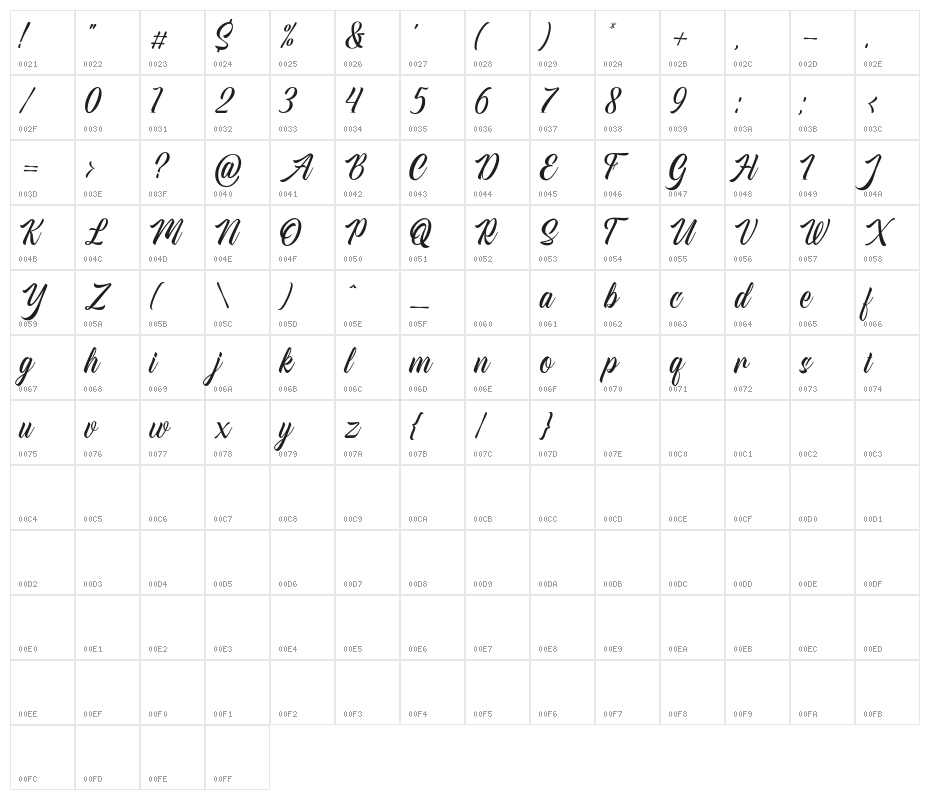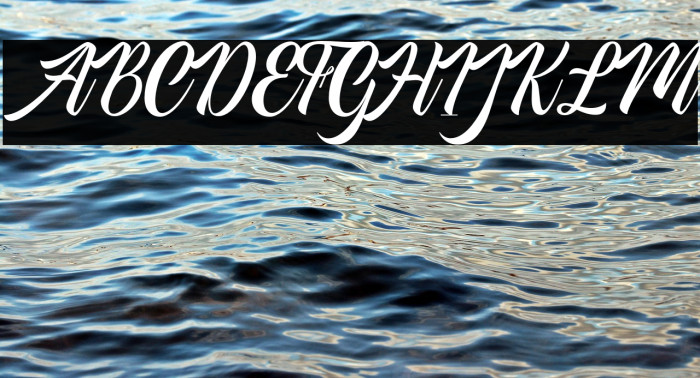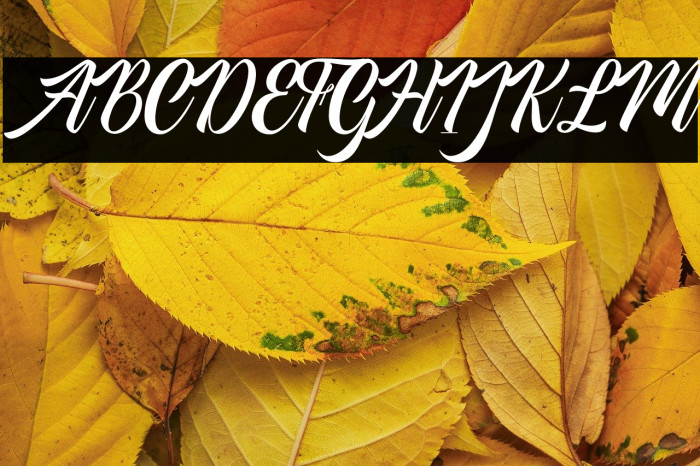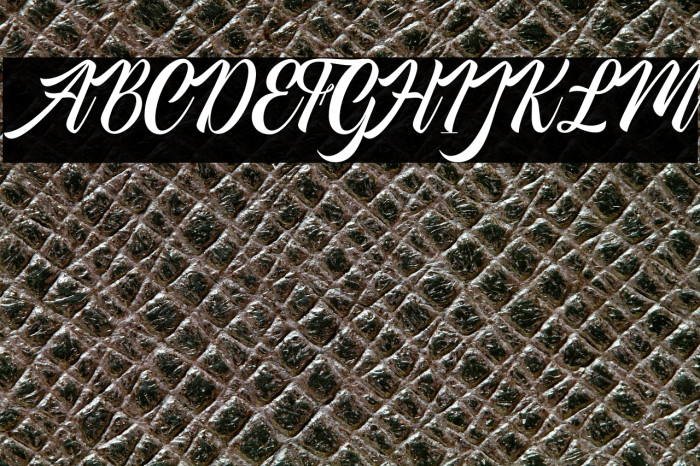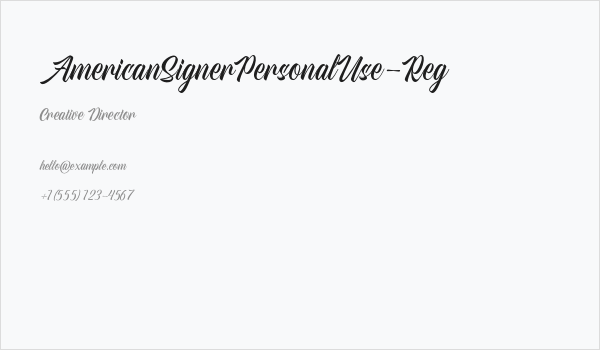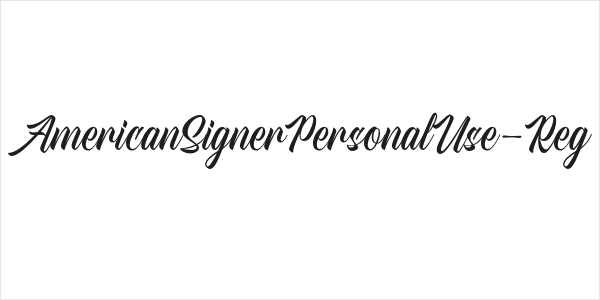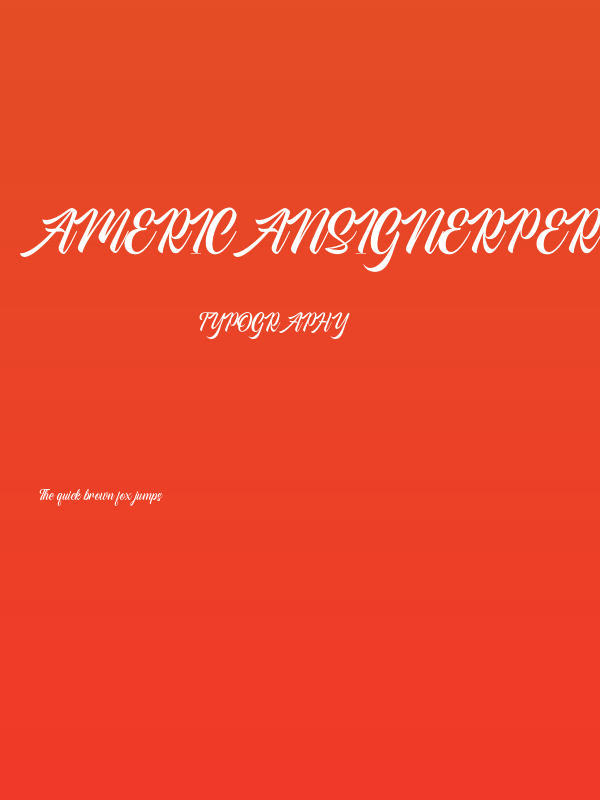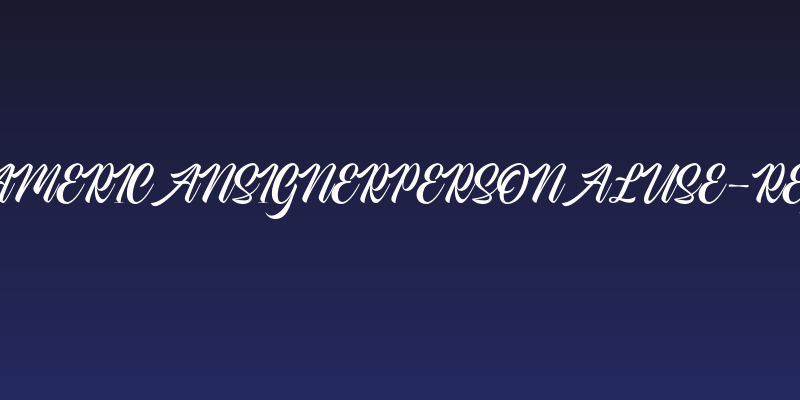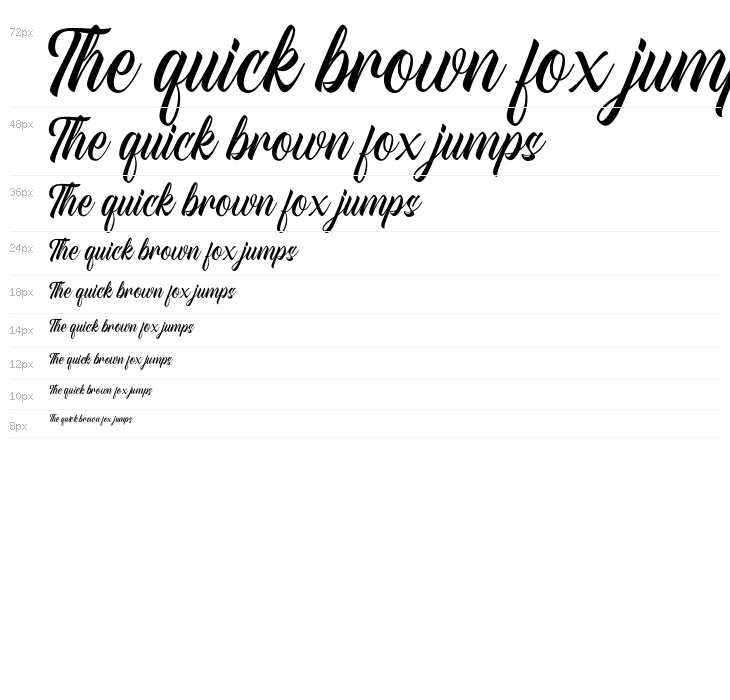
AmericanSignerPersonalUse-Reg Font
AmericanSignerPersonalUse-Reg Description
This font exudes a sense of elegance and sophistication with its flowing, cursive style. The characters are crafted with smooth, sweeping strokes that mimic the fluidity of handwriting. Each letter is distinct yet harmoniously connected, creating a seamless and graceful appearance. The uppercase letters are bold and prominent, while the lowercase letters maintain a consistent flow, enhancing readability. The numerals are equally stylish, maintaining the cursive theme with a slight slant. Special characters are thoughtfully designed to match the overall aesthetic, making this font versatile for various applications.
| Overall Style | Elegant, Decorative |
| Proposed Projects | Ideal for wedding invitations, elegant branding, personal signatures, and decorative projects. |